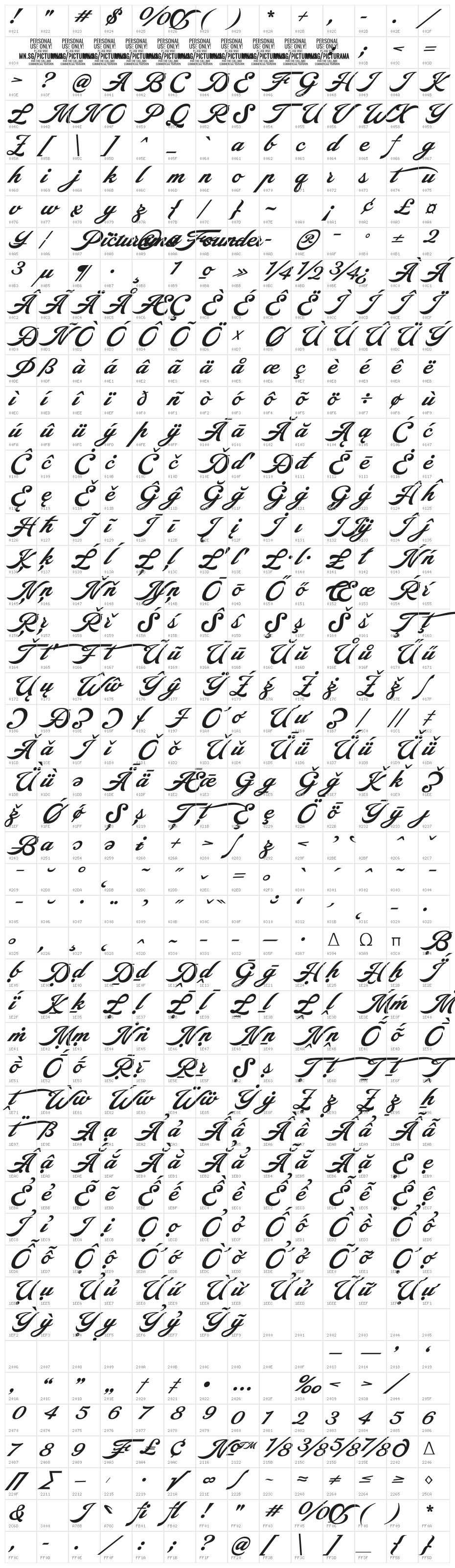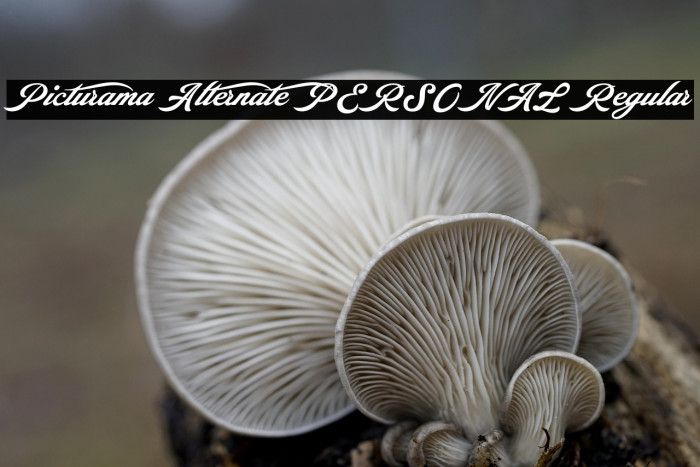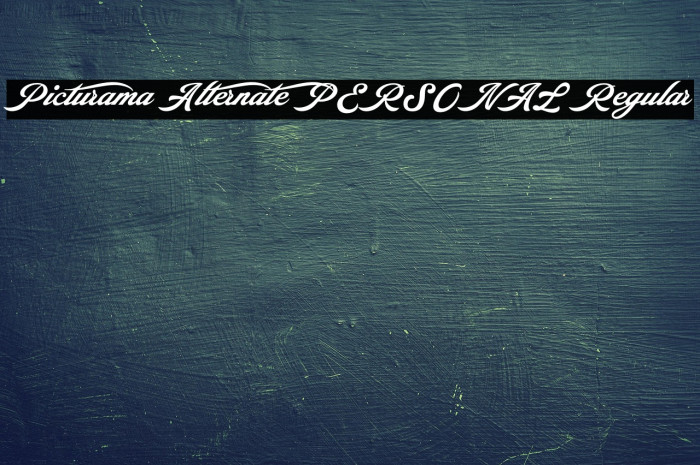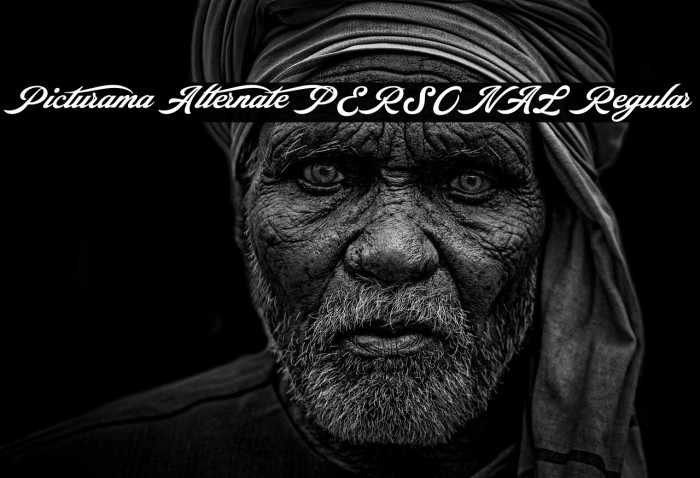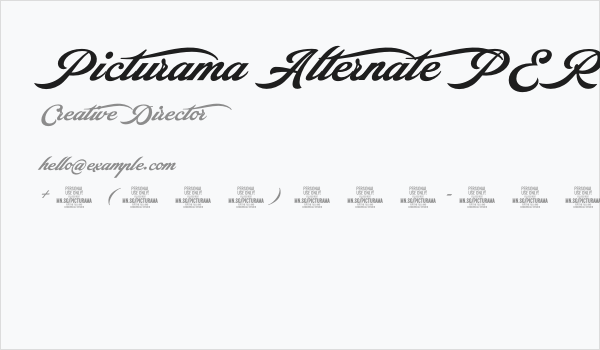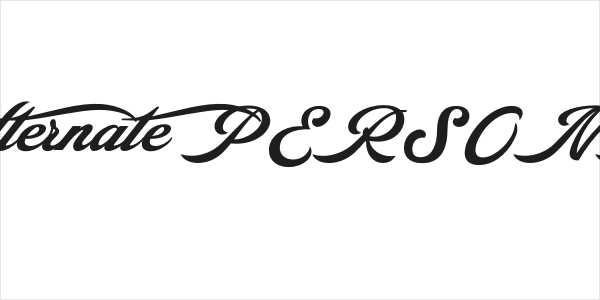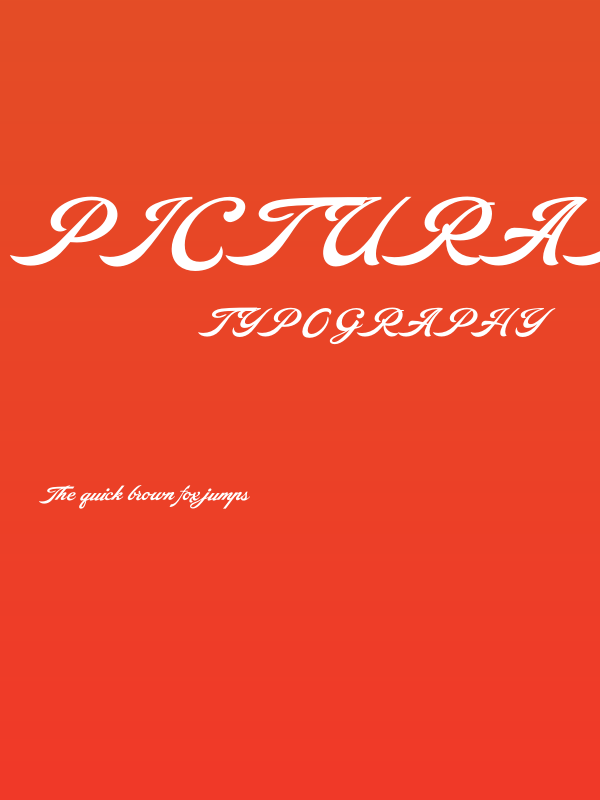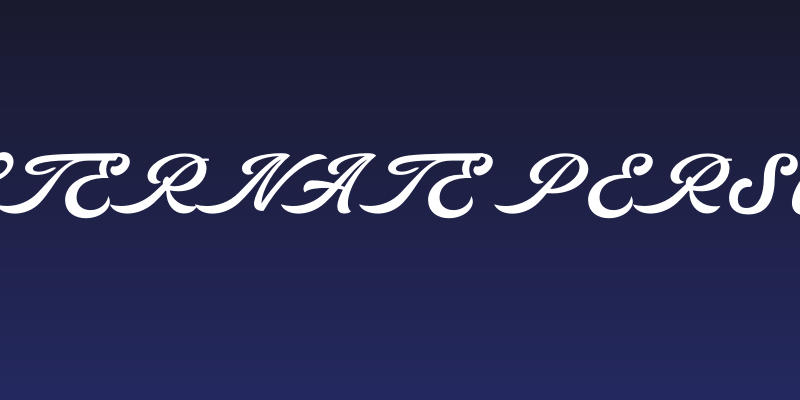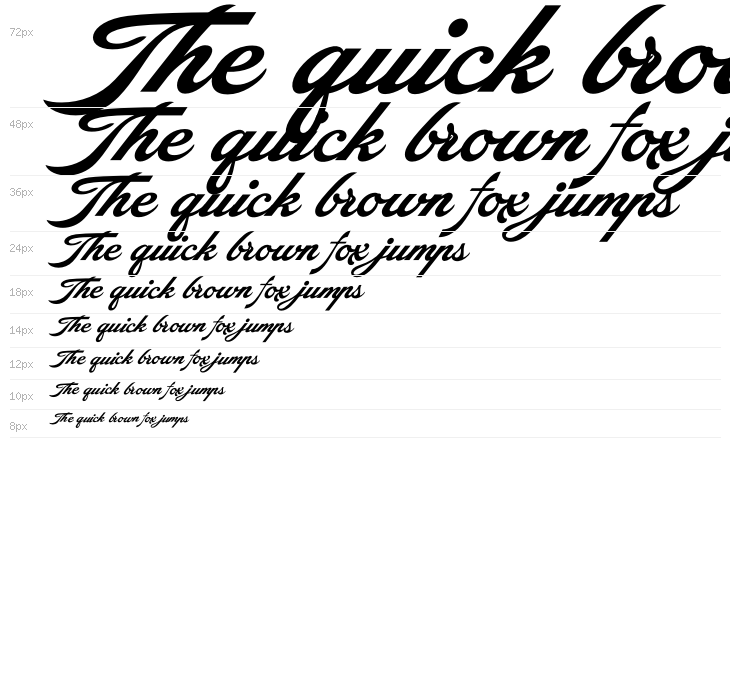
Picturama Alternate PERSONAL Regular Font
Picturama Alternate PERSONAL Regular Description
This font features a bold and flowing script style, characterized by its elegant and sweeping curves. The uppercase letters are ornate, with intricate loops and flourishes that give a sense of movement and sophistication. The lowercase letters maintain a consistent style, with smooth transitions between strokes, enhancing readability while preserving the decorative nature. The numerals and special characters complement the overall design, maintaining the same fluidity and elegance. This font is ideal for projects that require a touch of elegance and flair, such as invitations, branding, and decorative headlines.